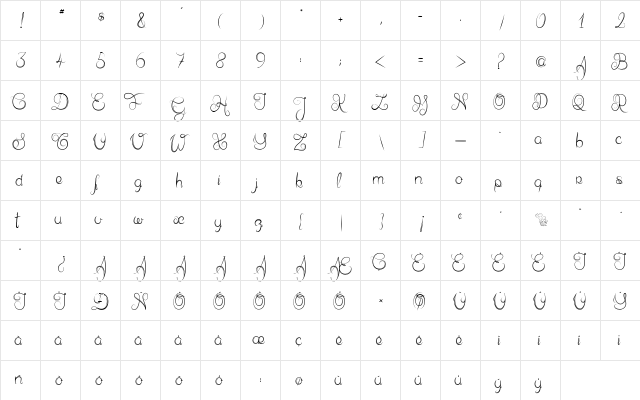
Delphine Et Mathias Script Regular Font Preview
Delphine Et Mathias Script Regular
Delphine Et Mathias Script Regular Font Details
| Foundry | dcoxy Medina Gregory |
| Designer | dcoxy Medina Gregory |
Design Context for Delphine Et Mathias Script Typeface
Delphine Et Mathias Script brings a calligraphic fluidity to the page — its connecting strokes and expressive curves give it an unmistakably human quality.
Font Pairing: Combine Delphine Et Mathias Script with a simple geometric sans for maximum contrast — the tension between flowing curves and clean structure is a classic typographic pairing.
Pro Tip: Use Delphine Et Mathias Script for short runs of text — names, titles, or taglines. Extended body copy in script faces tires the eye quickly.